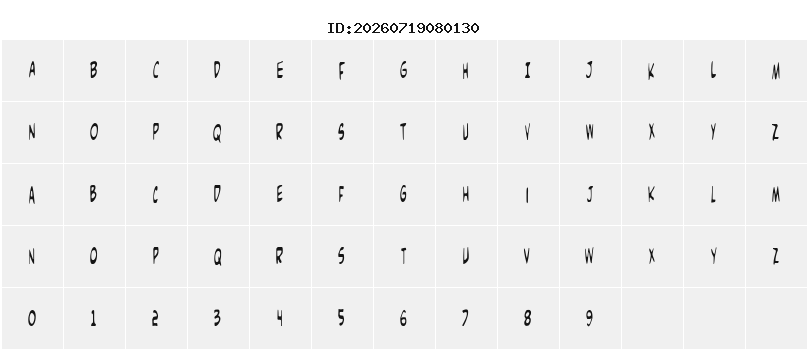
Comic Book Commando Condensed Preview
• Font Name: Comic Book Commando Condensed
• Font Style: Condensed
• Font ID: Comic Book Commando
• Full Font Name: Comic Book Commando Condensed
• PostScript Name: ComicBookCommandoCondensed
About Comic Book Commando Condensed.ttf
Comic Book Commando Condensed.ttf is a modern, elegant sans-serif font designed for ultimate readability and visual harmony. Perfect for branding, headlines, web design, and print materials.